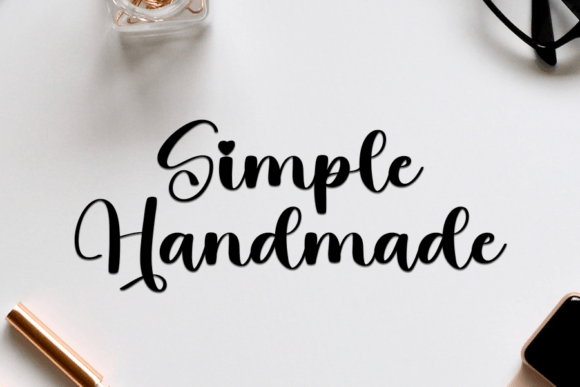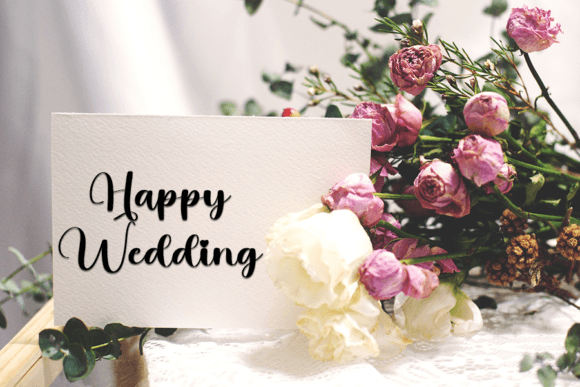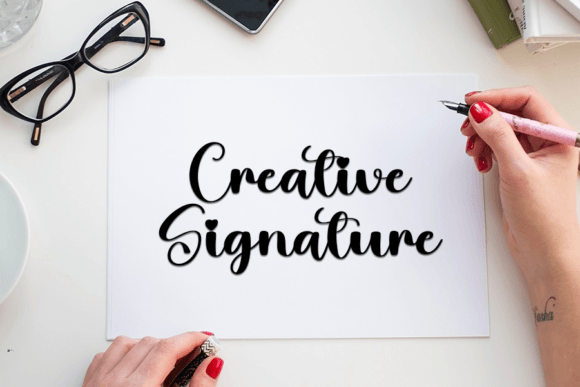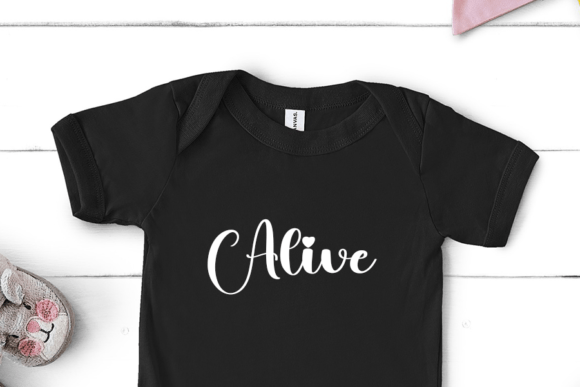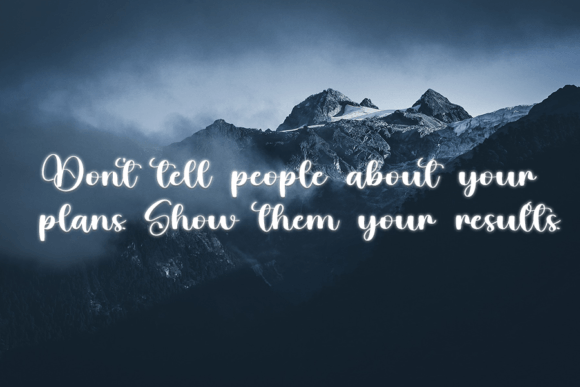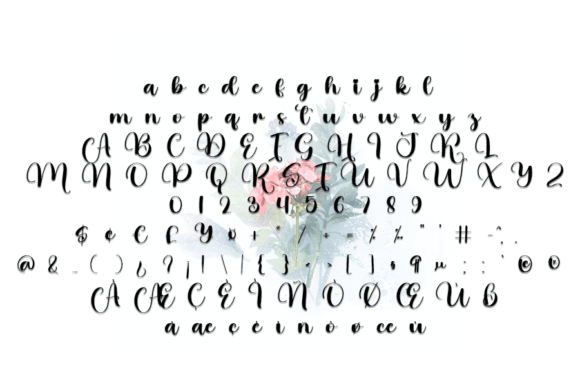
Introducing Alive Font: The Delicate Handwritten Font for Unique Designs
In the world of typography, a font can make or break a design. For designers and crafters looking for a cool and unique touch, Alive Font is a delicate handwritten font that is carefully crafted to elevate your creations. With its elegant and refined features, Alive Font is perfect for writing letters, invitations, food products, titles, and more.
What Makes Alive Font Special?
Alive Font is a one-of-a-kind handwritten font that boasts a distinctive and charming style. Its delicate features make it ideal for designs that require a touch of sophistication and whimsy. Whether you’re creating wedding invitations, branding materials, or social media graphics, Alive Font is sure to add a unique flair to your work.
Key Features of Alive Font
- Delicate Handwritten Style: Alive Font features a beautiful, handwritten style that is both elegant and refined.
- Unique and Cool Design: This font is carefully crafted to provide a cool and unique design that sets it apart from other fonts.
- Multipurpose: Alive Font can be used for a variety of design projects, including letters, invitations, food products, titles, and more.
- Easily Readable: Despite its delicate nature, Alive Font is easily readable, making it perfect for body text and headings.
Uses of Alive Font
Alive Font is a versatile font that can be used in a variety of design projects. Here are some ideas to get you started:
- Wedding Invitations: Add a touch of elegance and whimsy to your wedding invitations with Alive Font.
- Branding Materials: Use Alive Font to create unique and memorable branding materials, such as business cards, letterheads, and packaging.
- Social Media Graphics: Elevate your social media graphics with Alive Font, perfect for creating eye-catching posts and stories.
- Food Product Labels: Add a personal touch to your food product labels with Alive Font, perfect for artisanal food makers.
Tips for Using Alive Font
To get the most out of Alive Font, here are some tips to keep in mind:
- Pair with Bold Fonts: Pair Alive Font with bold fonts to create a striking contrast and add visual interest to your design.
- Use for Headings and Titles: Use Alive Font for headings and titles to add a touch of elegance and sophistication.
- Experiment with Colors: Experiment with different colors to find the perfect match for your design and brand.
Alive Font is a unique and versatile handwritten font that is perfect for designers and crafters looking for a cool and elegant touch. With its delicate features and multipurpose design, Alive Font is sure to elevate your designs and add a touch of whimsy to your creations. Whether you’re creating wedding invitations, branding materials, or social media graphics, Alive Font is the perfect choice.